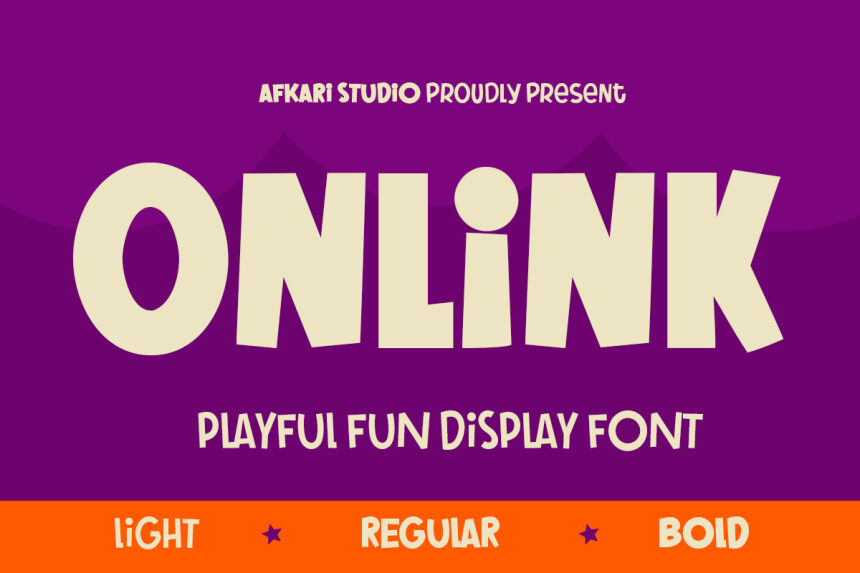
Onlink Bold font by Afkari Studio is a free comic display typeface in the Onlink family, built with chunky, hand-cut forms that feel like they’ve been snipped from paper and stamped onto the page. The letters are wide, bouncy, and a little unruly, with inky black shapes that grab attention without feeling harsh. It has a playful weight that reads instantly at a glance, giving headlines a bold, friendly shout instead of a sterile yell.